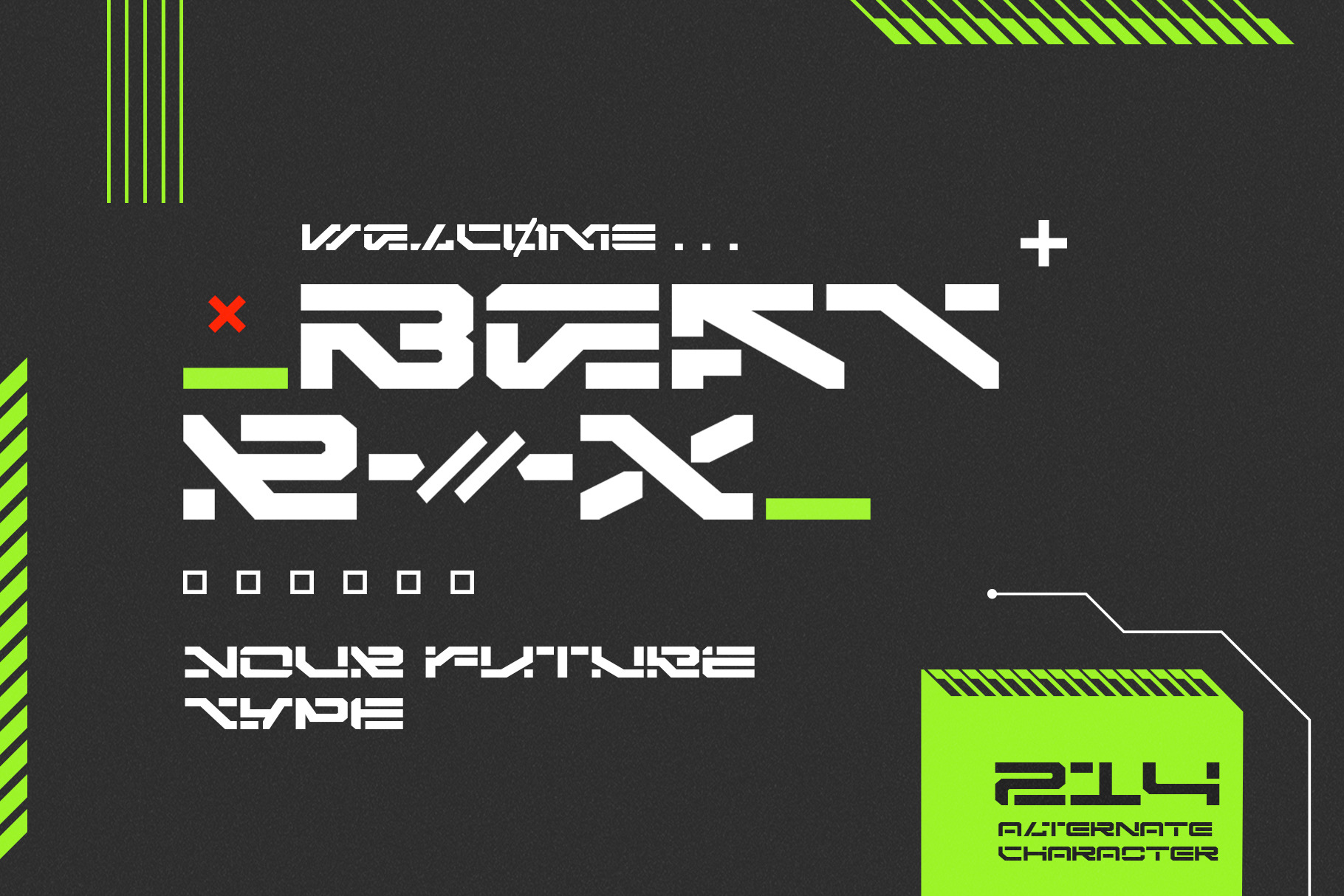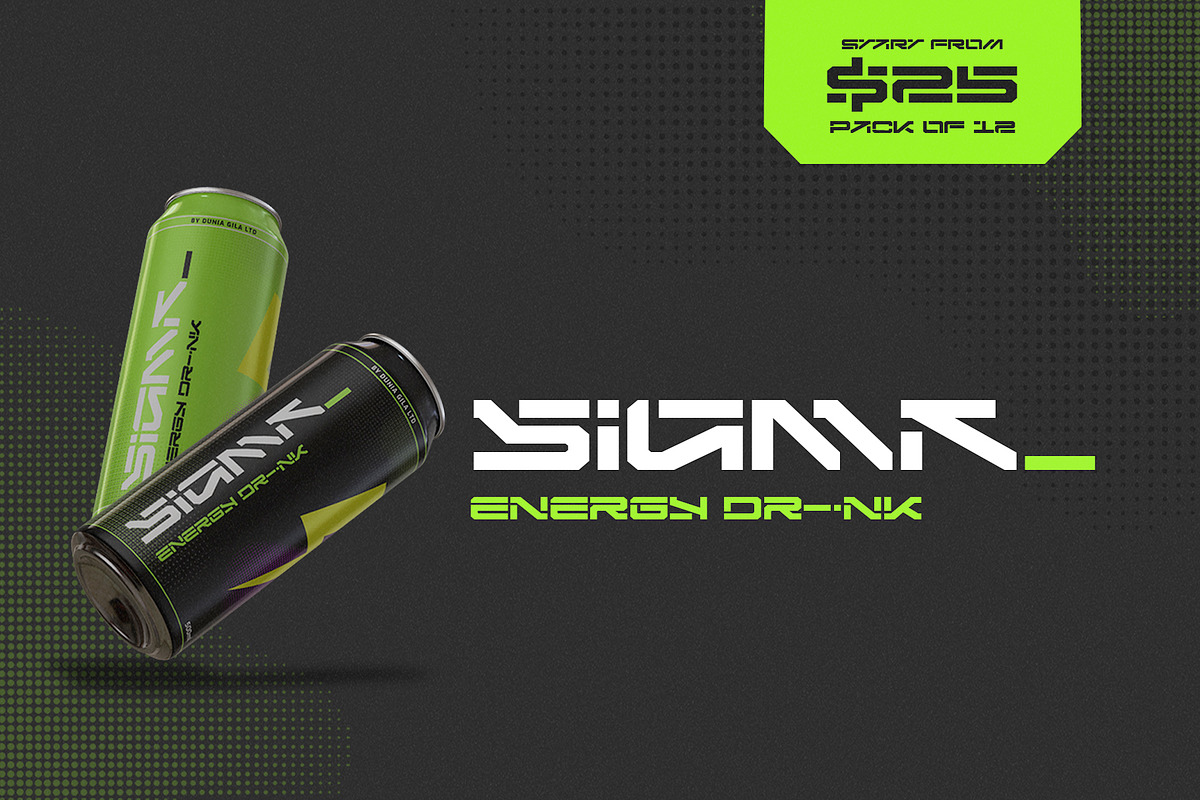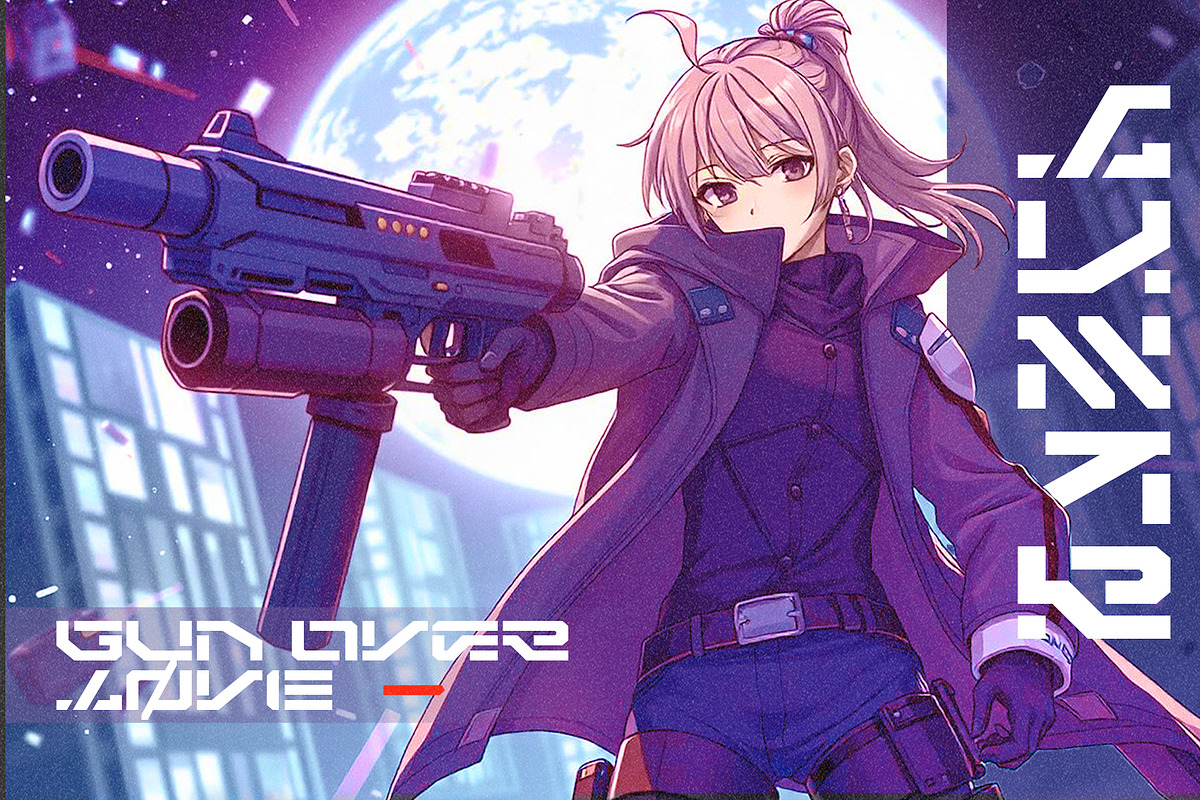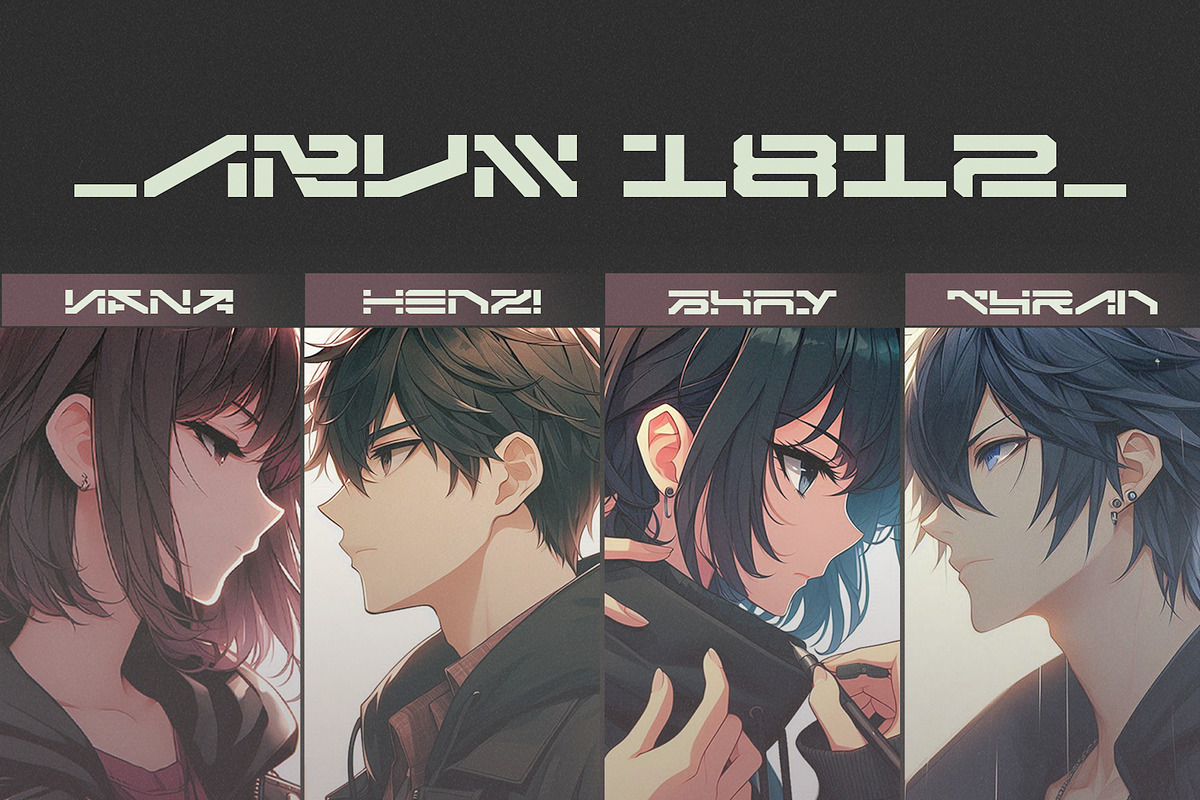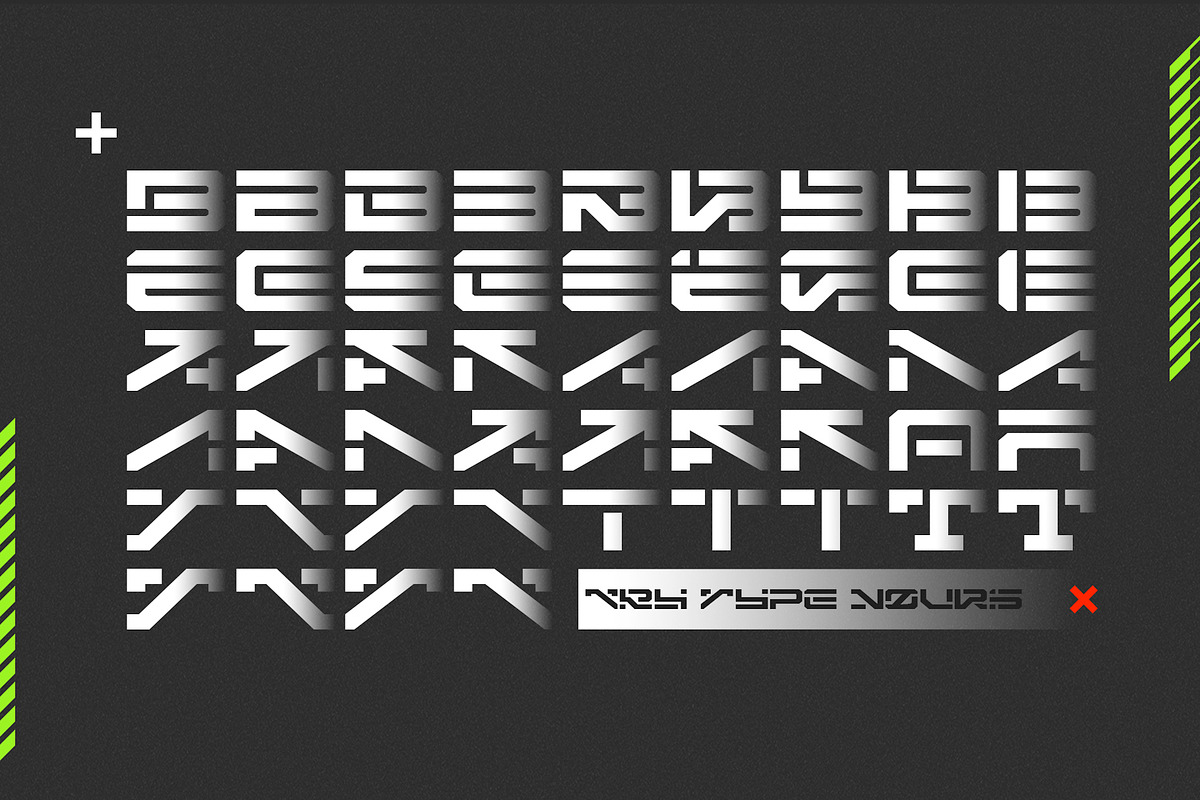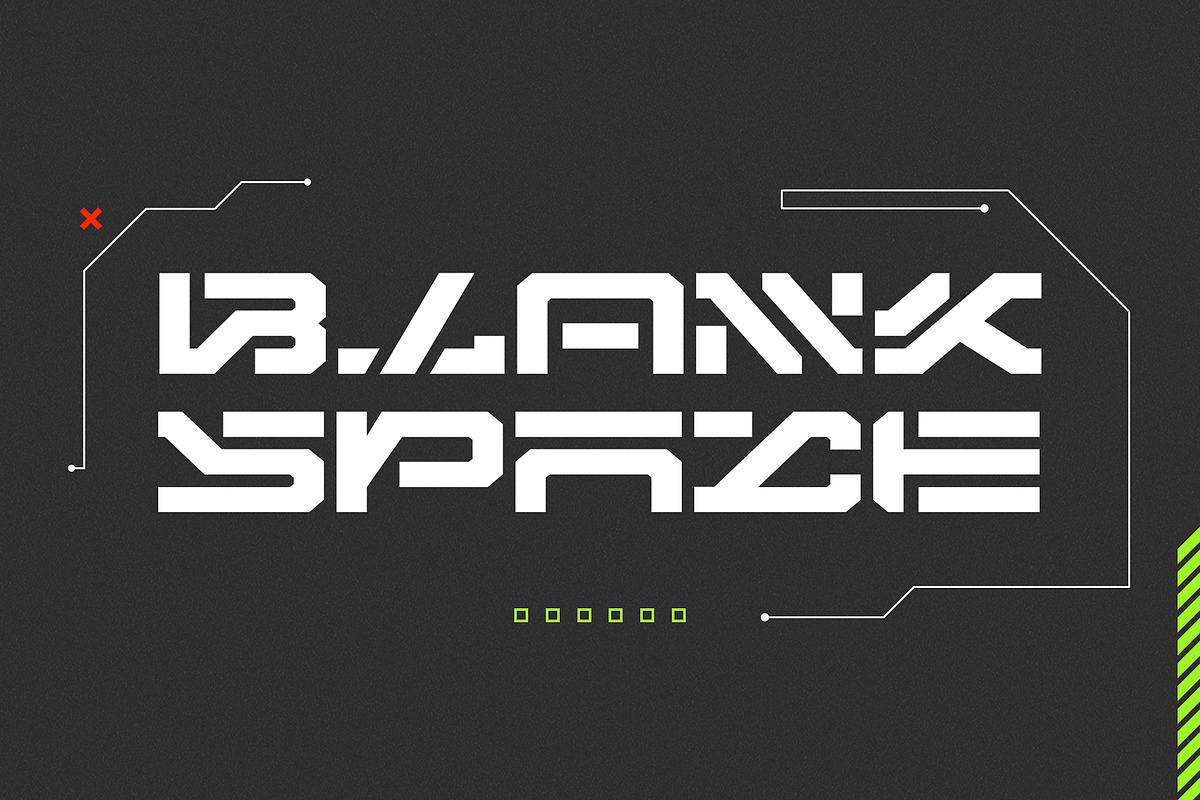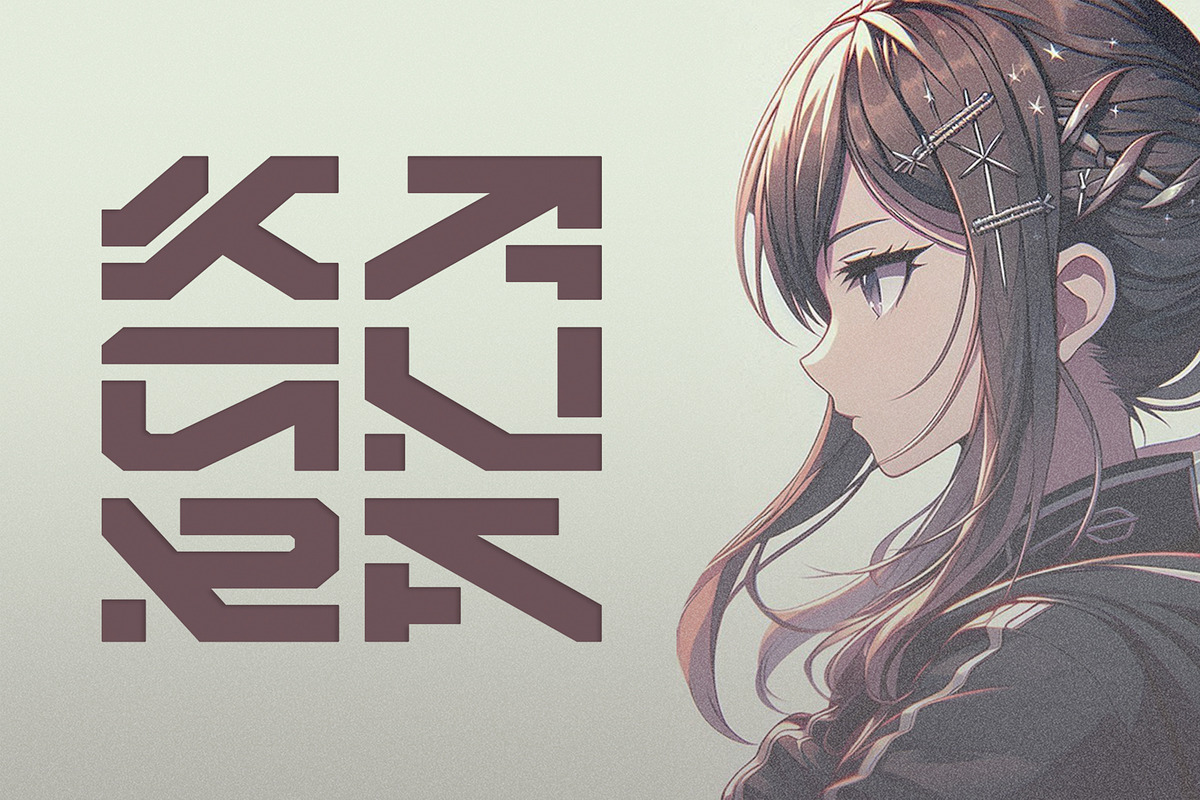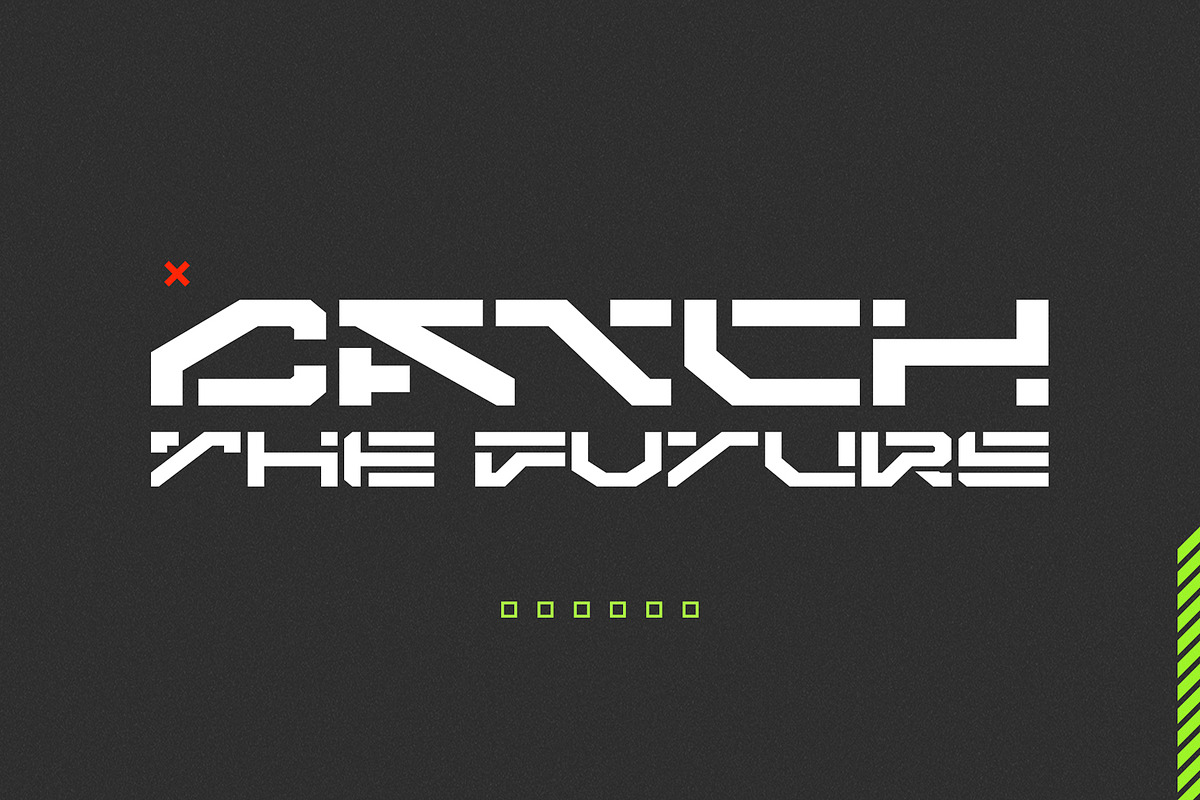
Beatrix Futuristic Font
Beatrix is a futuristic typeface designed to evoke the feeling of cutting-edge technology and innovation. Its firm, straight lines create a sense of stability and precision. The font is constructed with a high-tech feel, perfect for sci-fi concepts, digital branding, and futuristic design projects.
Additionally, Beatrix includes 214 alternate characters, (Download glyph index here https://bit.ly/41vw3On and you'll see all glyph are available in this font and all alternate), providing a vast array of options for customizing your design. These alternatives will give you the flexibility to create visually striking compositions that remain firmly grounded in a futuristic theme.
Ideal for anything from tech companies to space exploration, Beatrix will make a striking impact in your project, projecting a vision of tomorrow today.